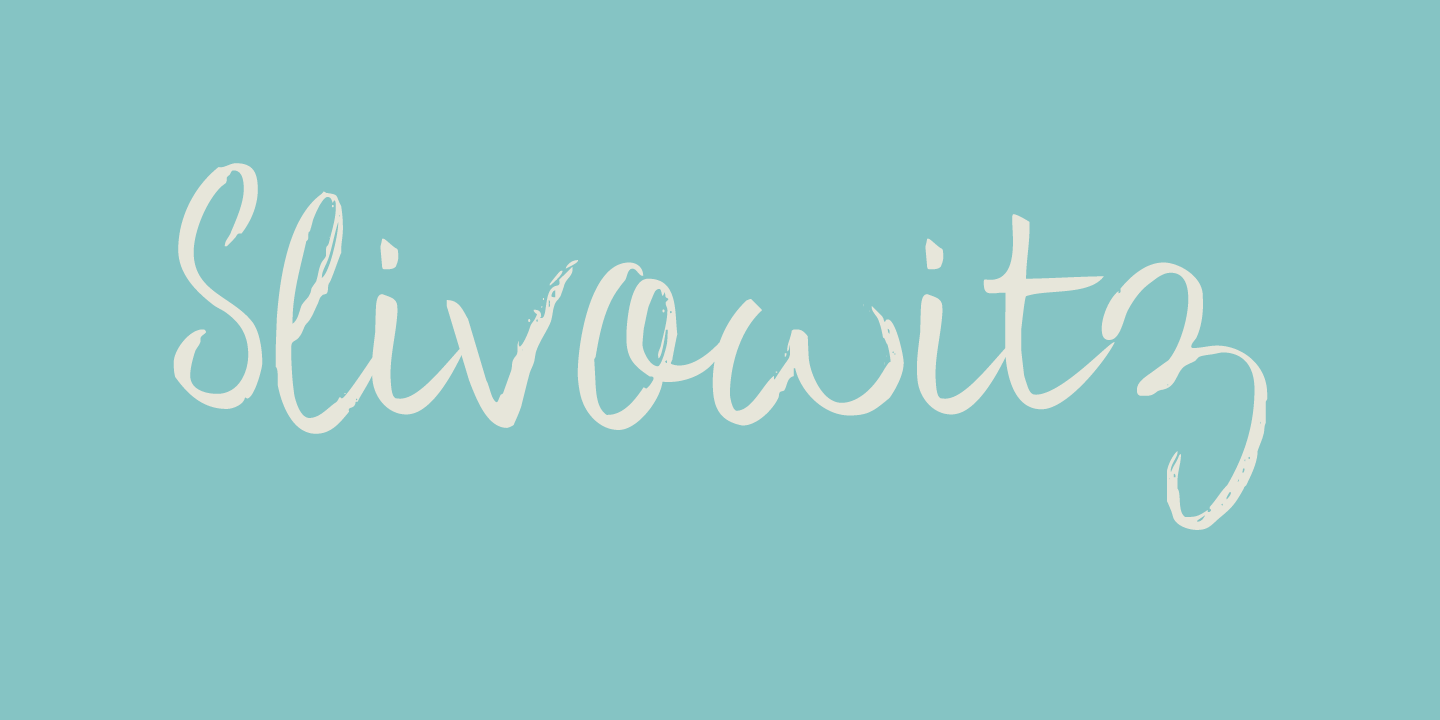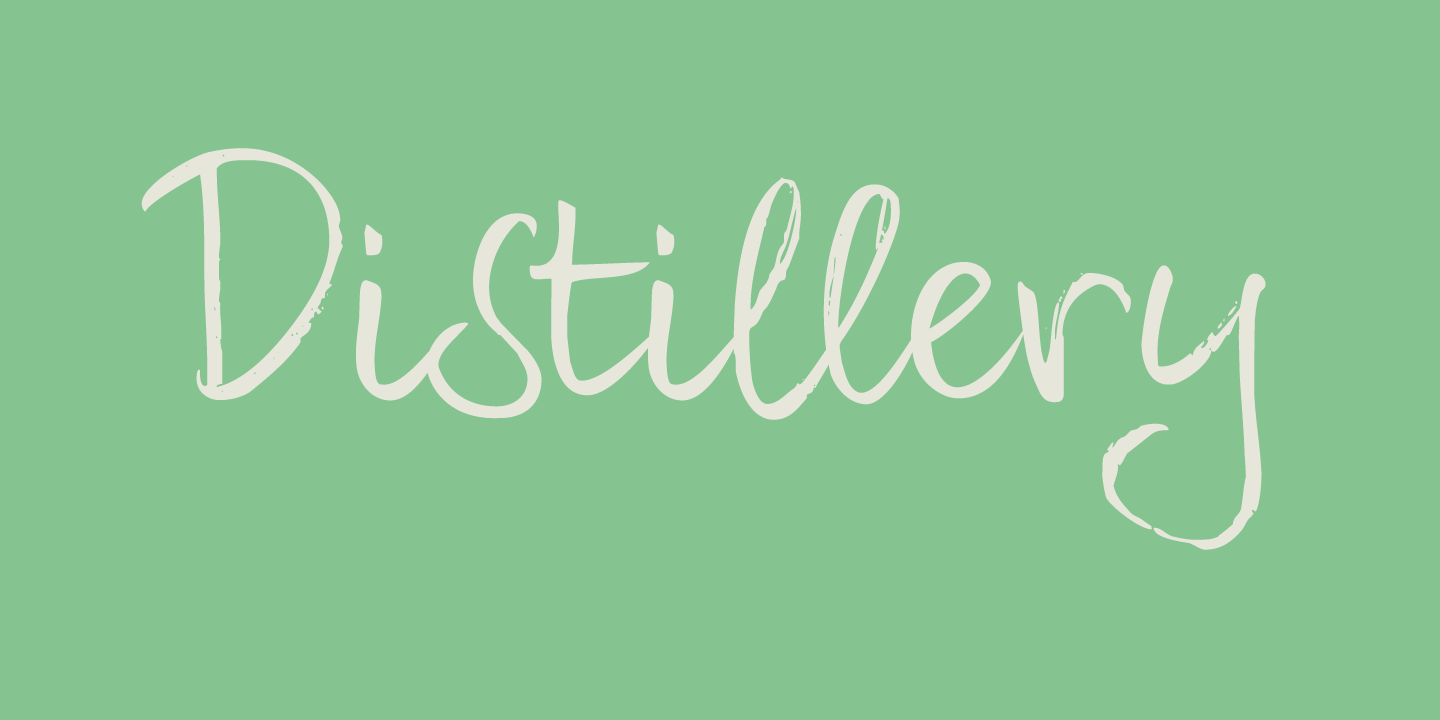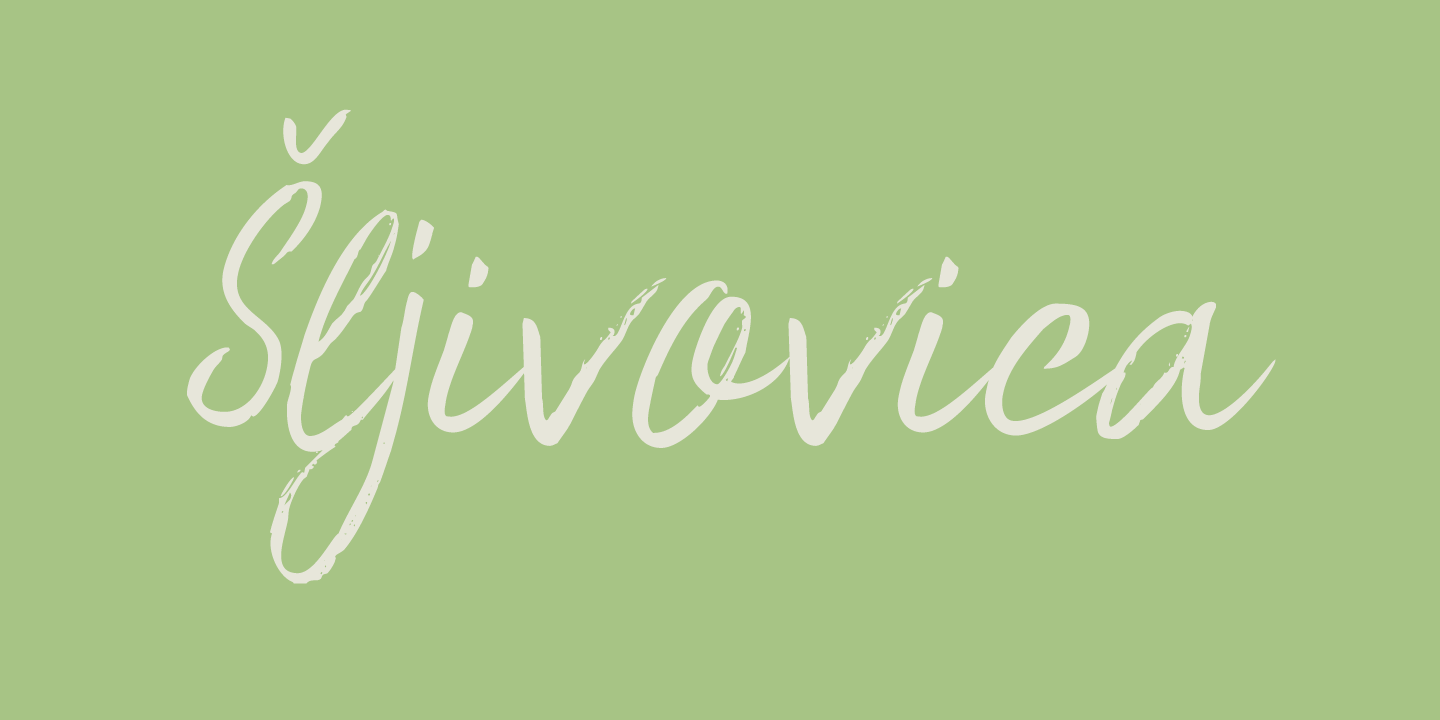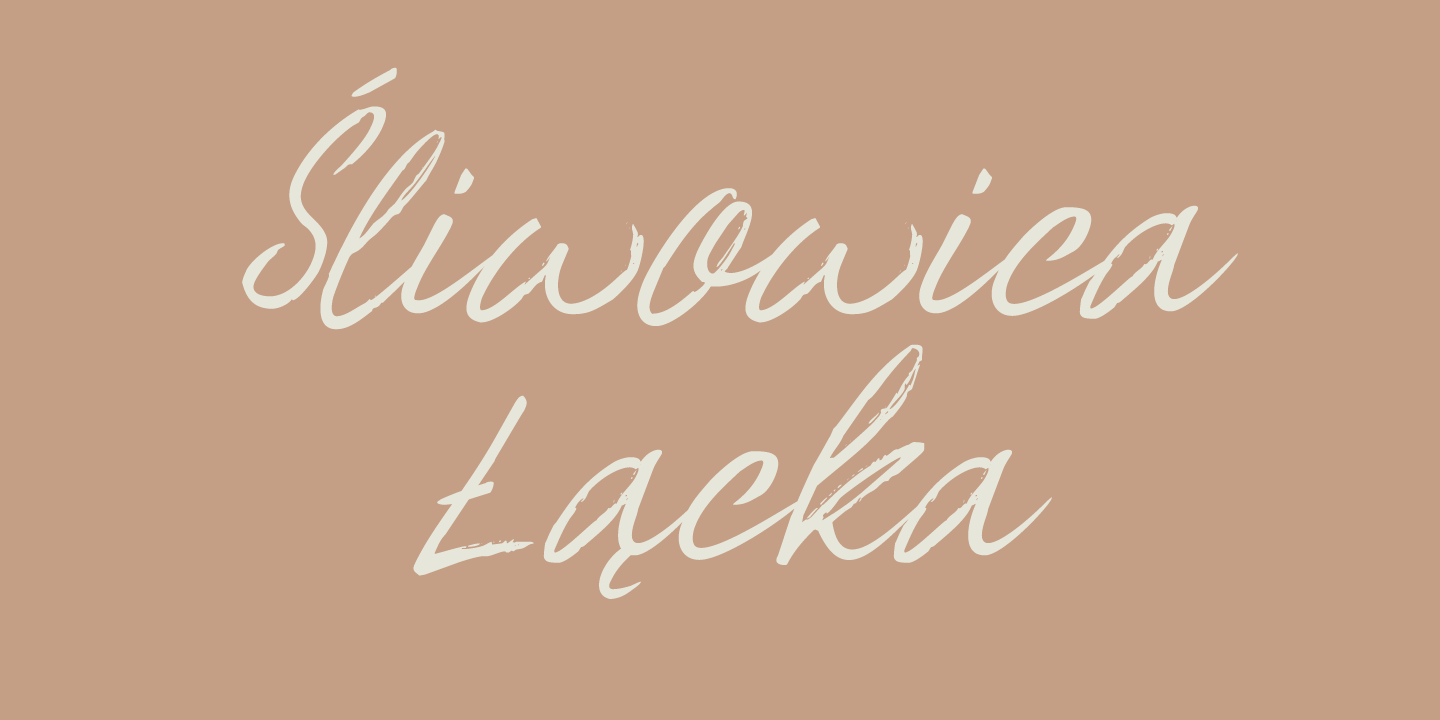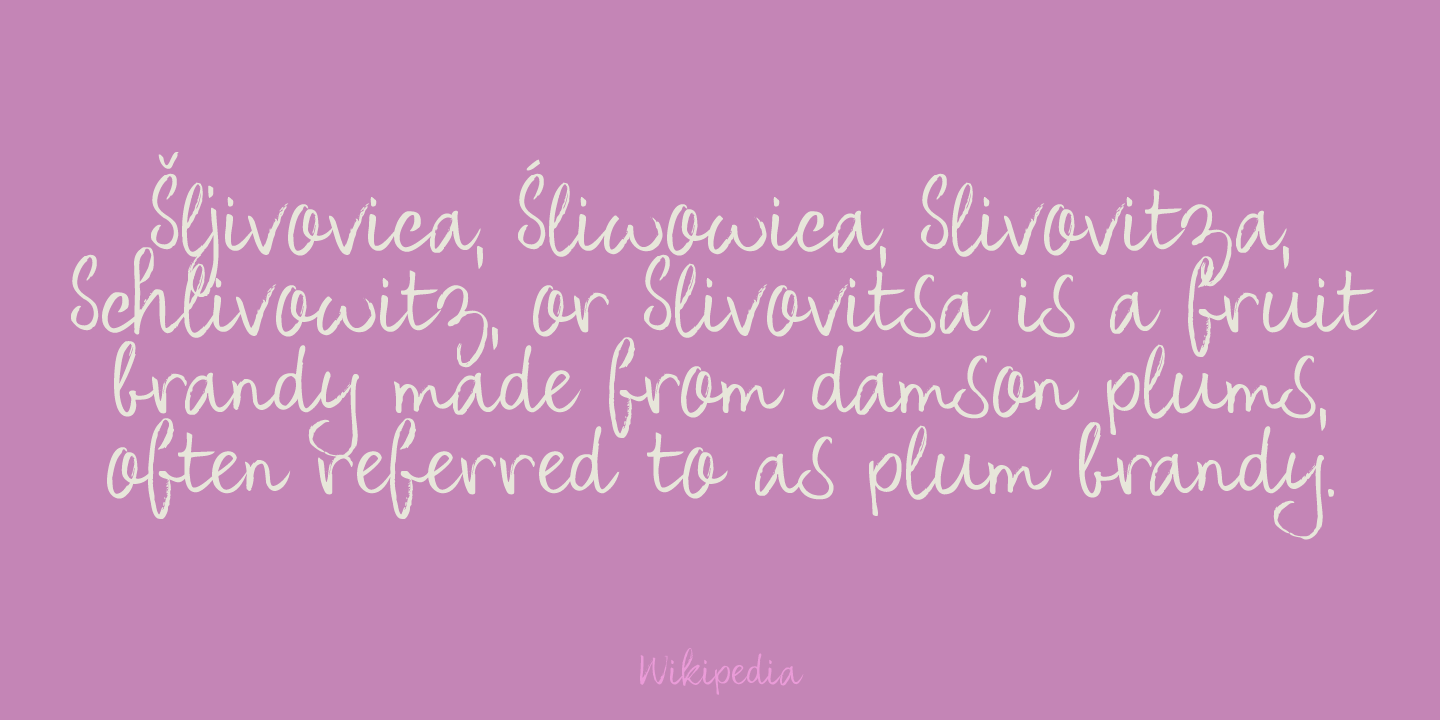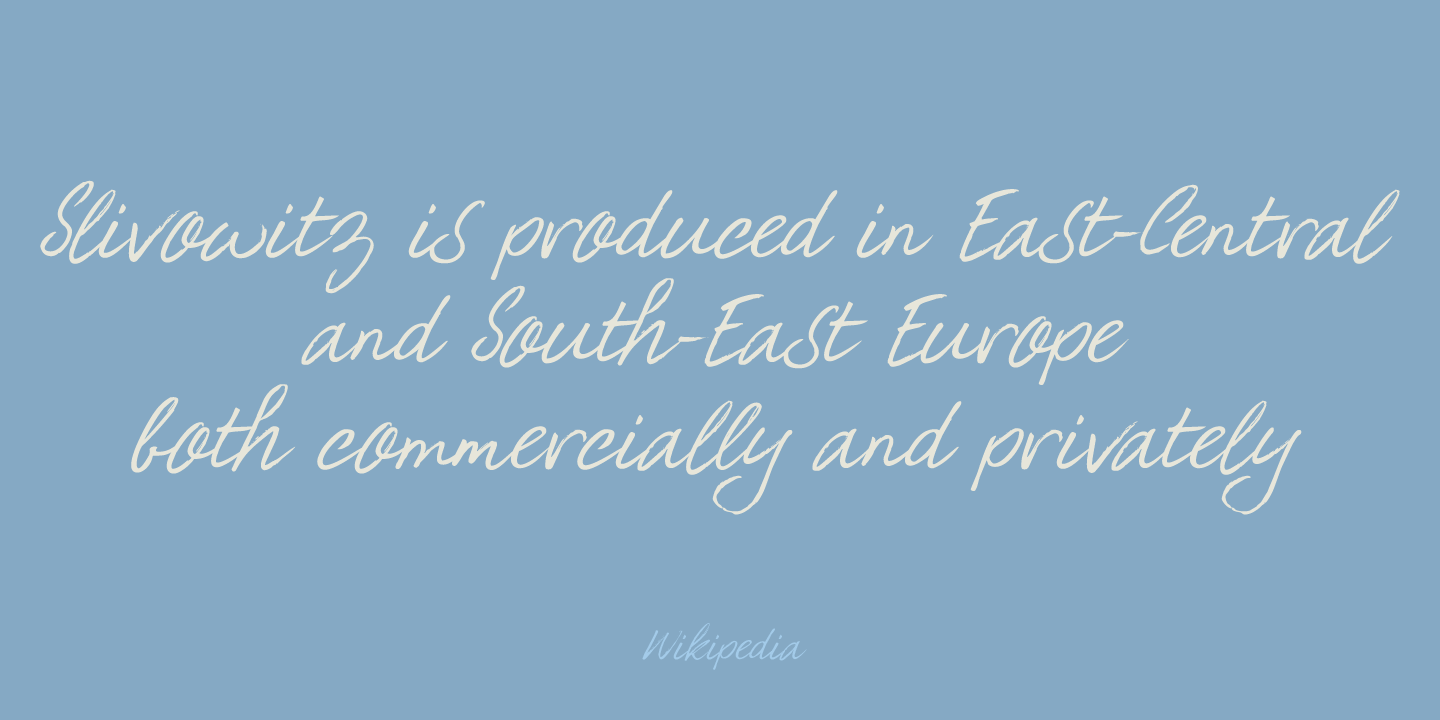
Slivowitz Family (3 fonts)
Slivowitz is an easy-going handwritten script font - it looks good on fashion items, book covers and fancy magazines, but greeting cards will look just as great. Comes with a bunch of ligatures, alternates and a whole lotta diacritics!